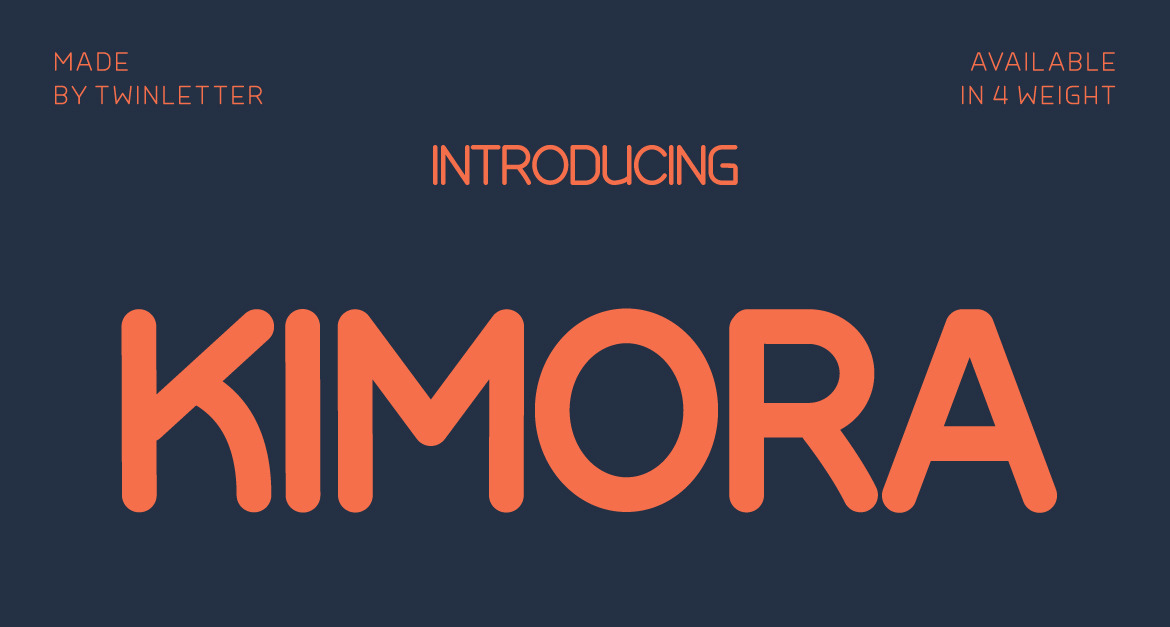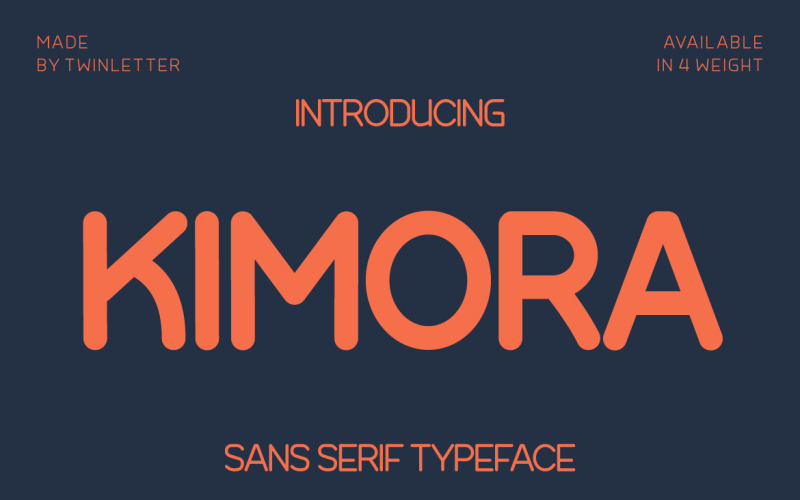
Kimora - sanserif typeface with a relaxed yet elegan
Kimora is a sanserif typeface with a relaxed yet elegant tone. It’s a versatile font that can be used in both formal and informal settings.
Because this typeface is comfortable to read, every message you send will be readily read and comprehended.
of course, your various design projects will be perfect and extraordinary if you use this font because this font is equipped with a font family, both for titles and subtitles and sentence text, start using our fonts for your extraordinary projects.